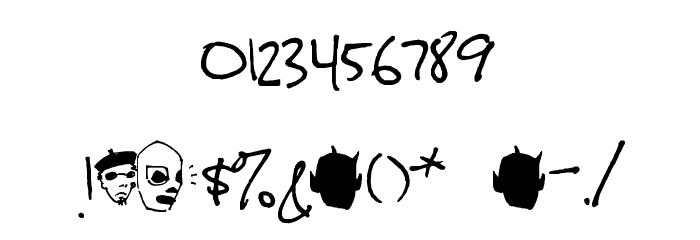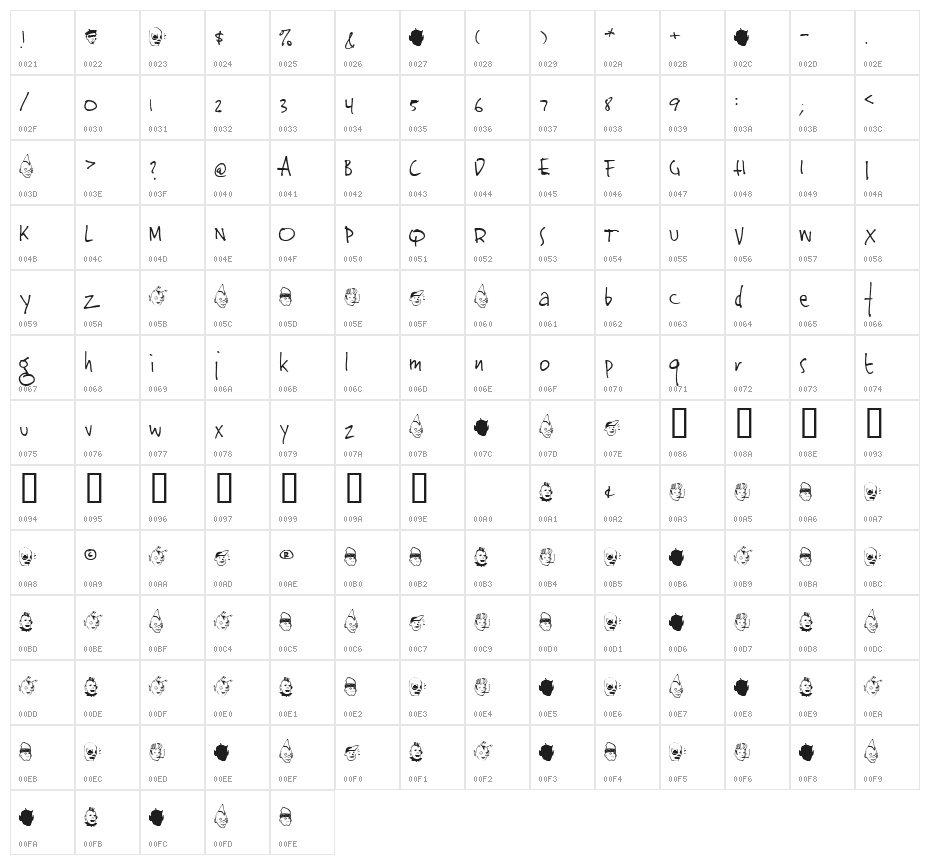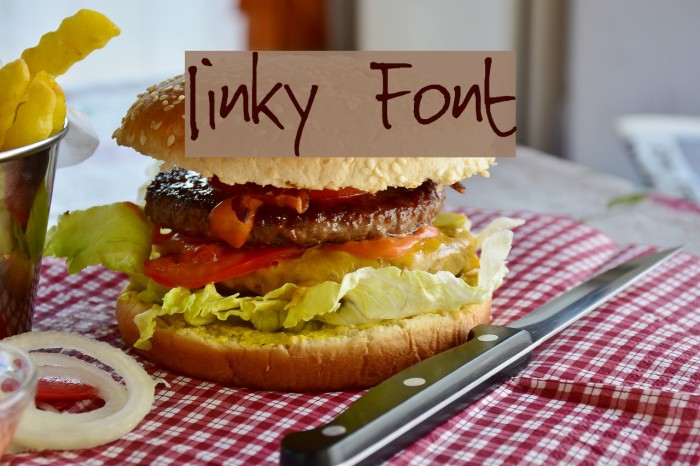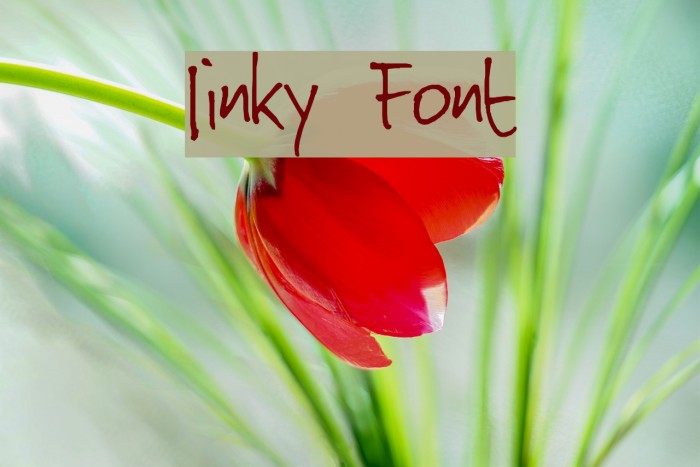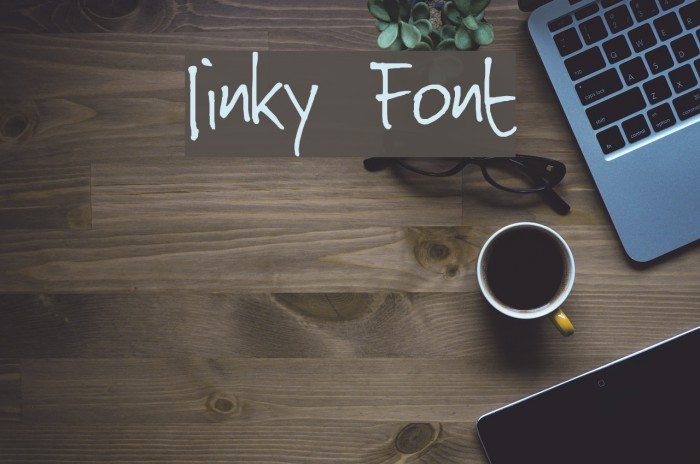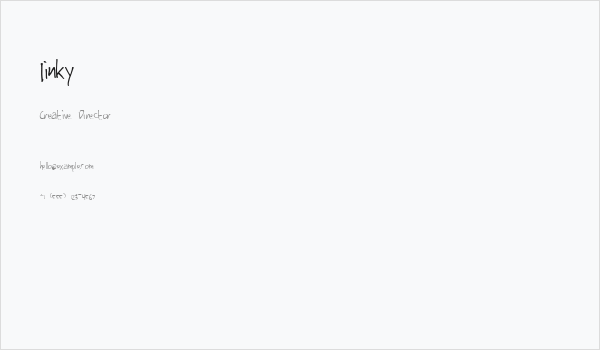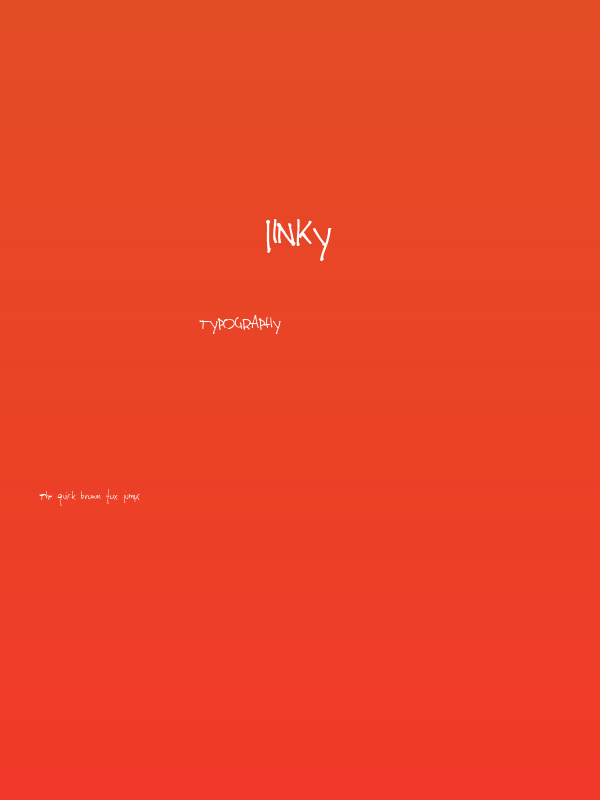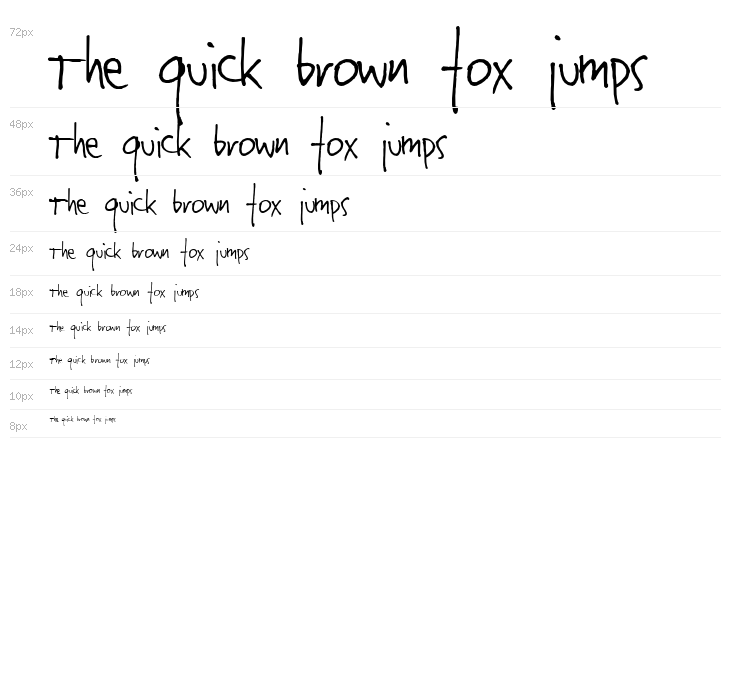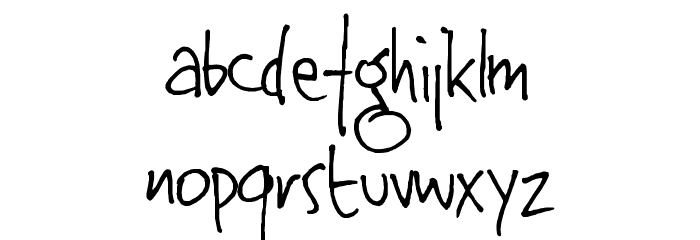
Jinky Font
Jinky Description
This font exudes a playful and quirky handwritten style, characterized by its irregular and slightly erratic strokes. The letters vary in height and slant, giving it a casual and informal appearance. The uppercase letters are bold and prominent, while the lowercase letters maintain a consistent flow with unique loops and curves. The numerals are distinct and maintain the same playful quality. Special characters are creatively designed, adding to the font's whimsical nature. Overall, this font is perfect for projects that require a personal touch or a fun, lighthearted vibe.
JINKY UPPERCASE
JINKY LOWERCASE
JINKY OTHER CHARS